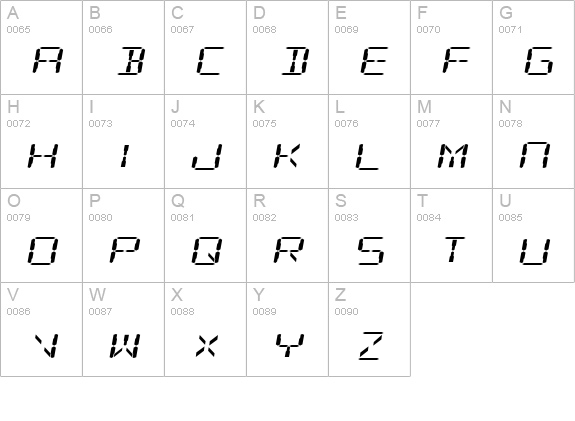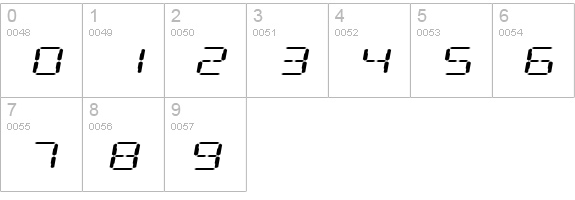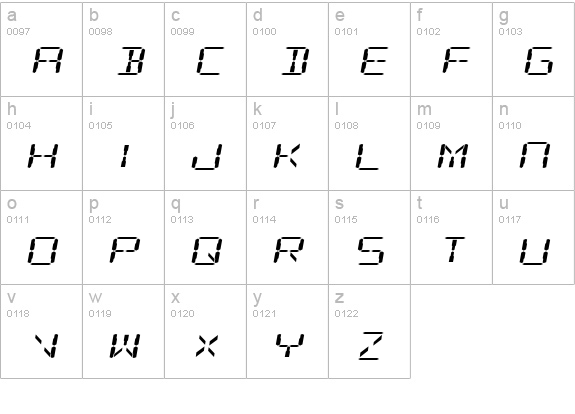
Digital Readout Expanded is a distinctive, extended-width variant in the Digital typeface family \xE2\x80\x94 well suited to design and typography projects.
Digital Readout Expanded font is a sleek and modern typeface that is perfect for projects requiring a futuristic and technological aesthetic. Its clean lines and sharp edges make it ideal for digital displays, tech-related designs, and science fiction themes. The expanded version of the font adds an extra level of impact and readability, making it stand out even more. What's even better is that Digital Readout Expanded font is available for free download at FontsMarket.com. This means you can easily access this dynamic font for your personal or commercial projects without any cost. Don't miss out on the opportunity to enhance your designs with this eye-catching typeface that exudes innovation and sophistication.